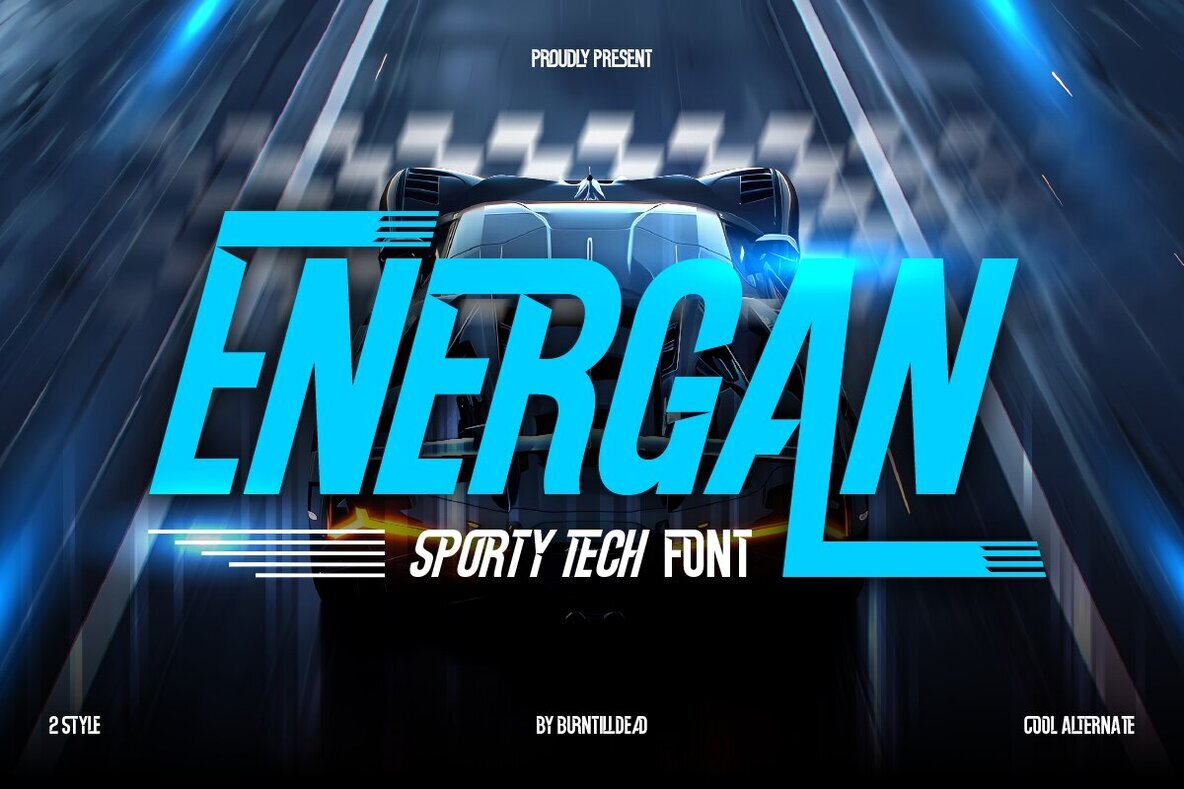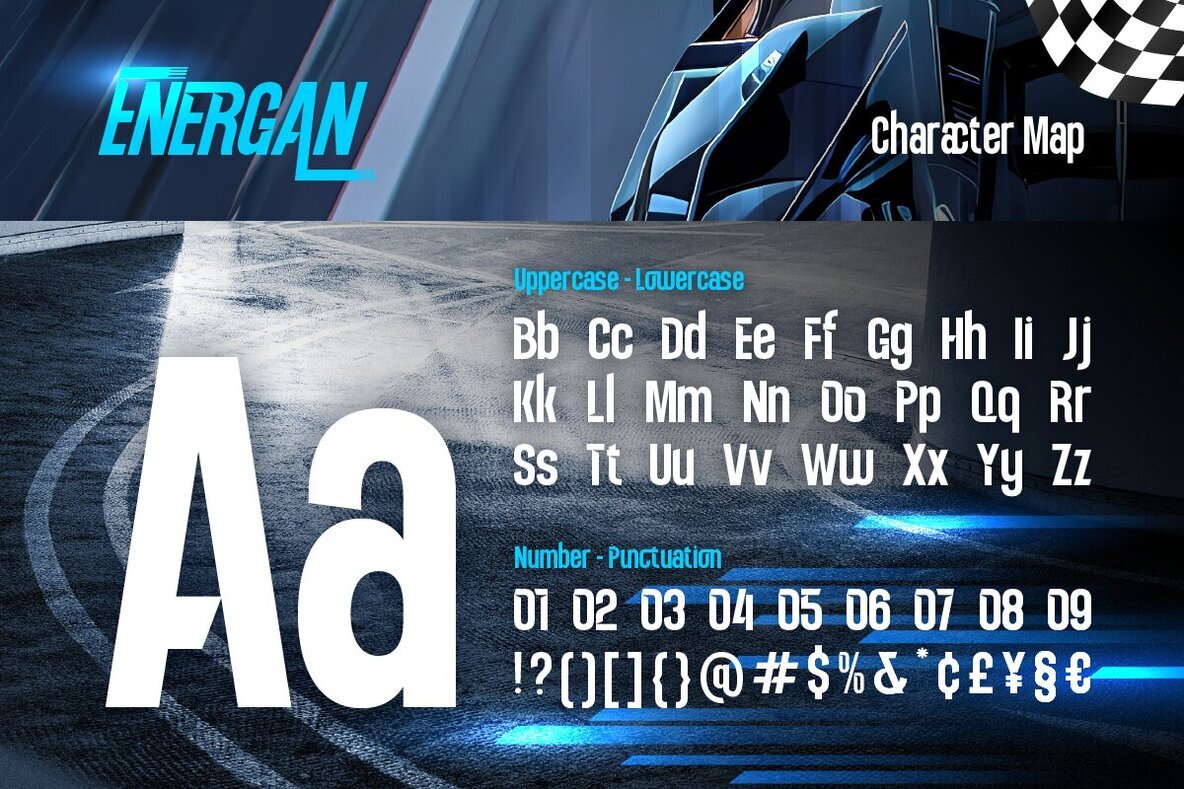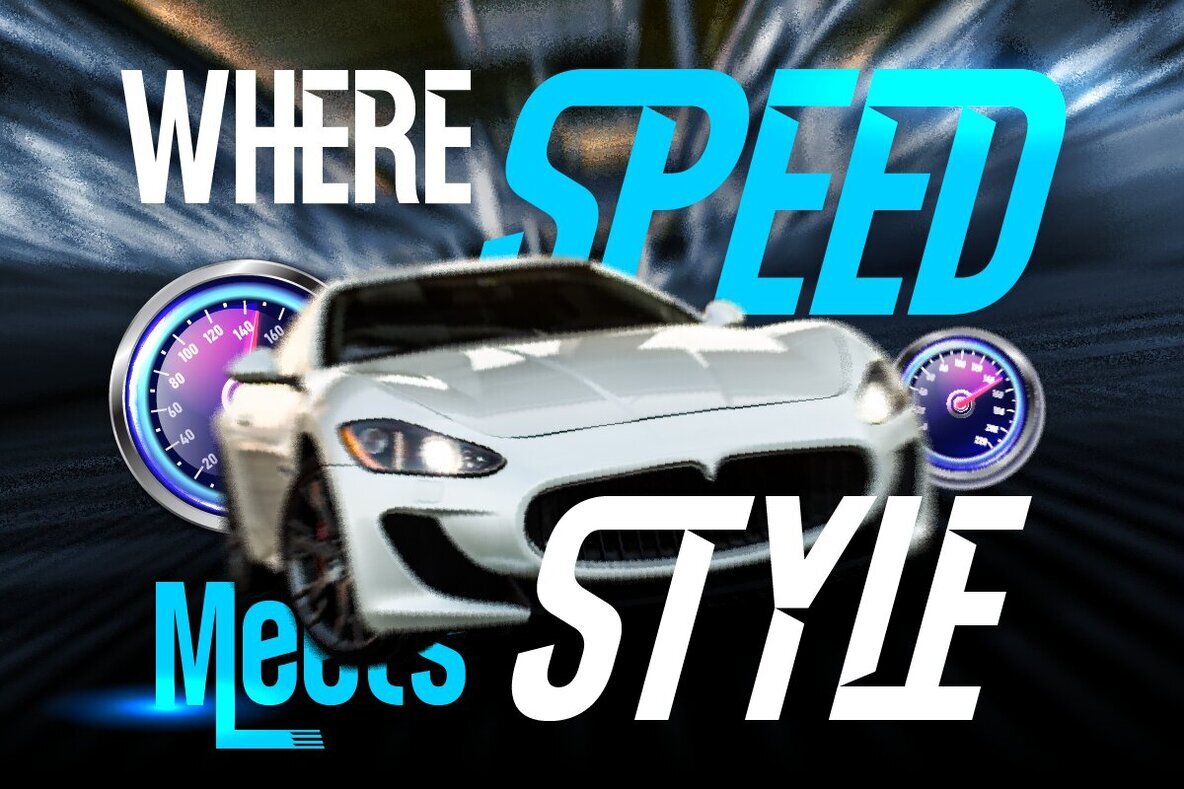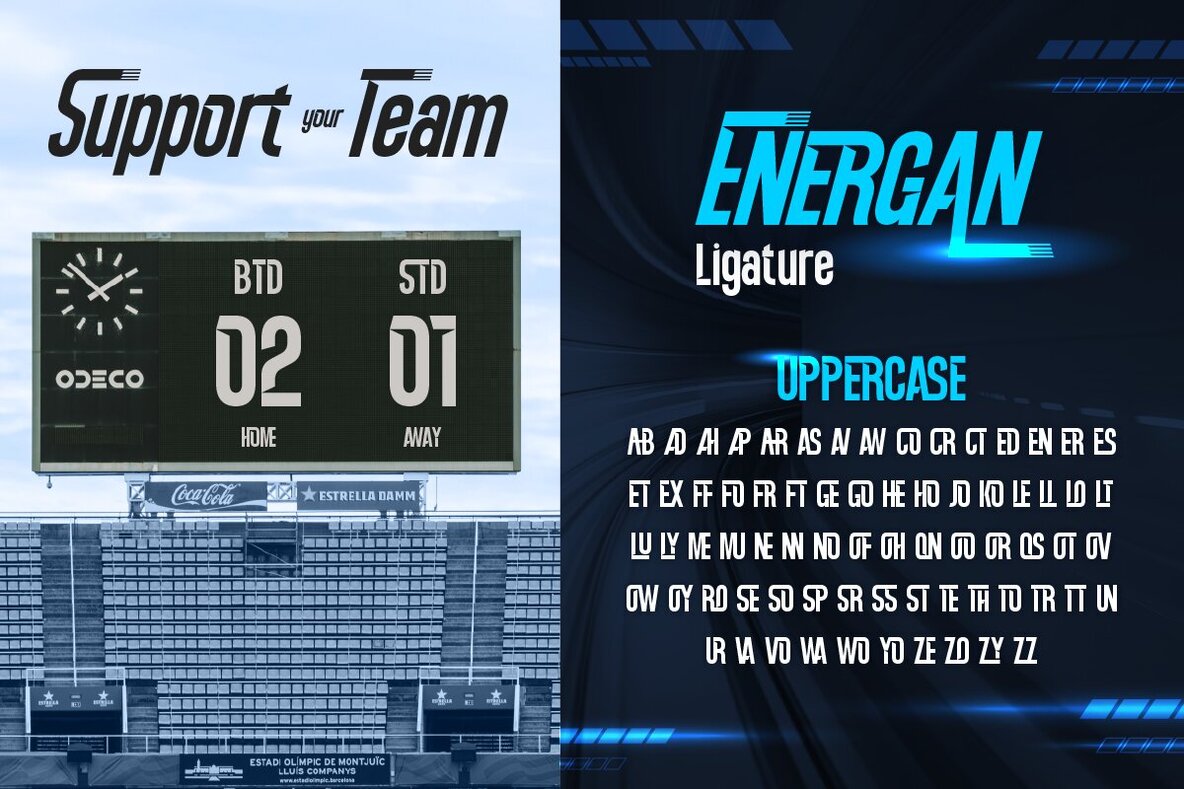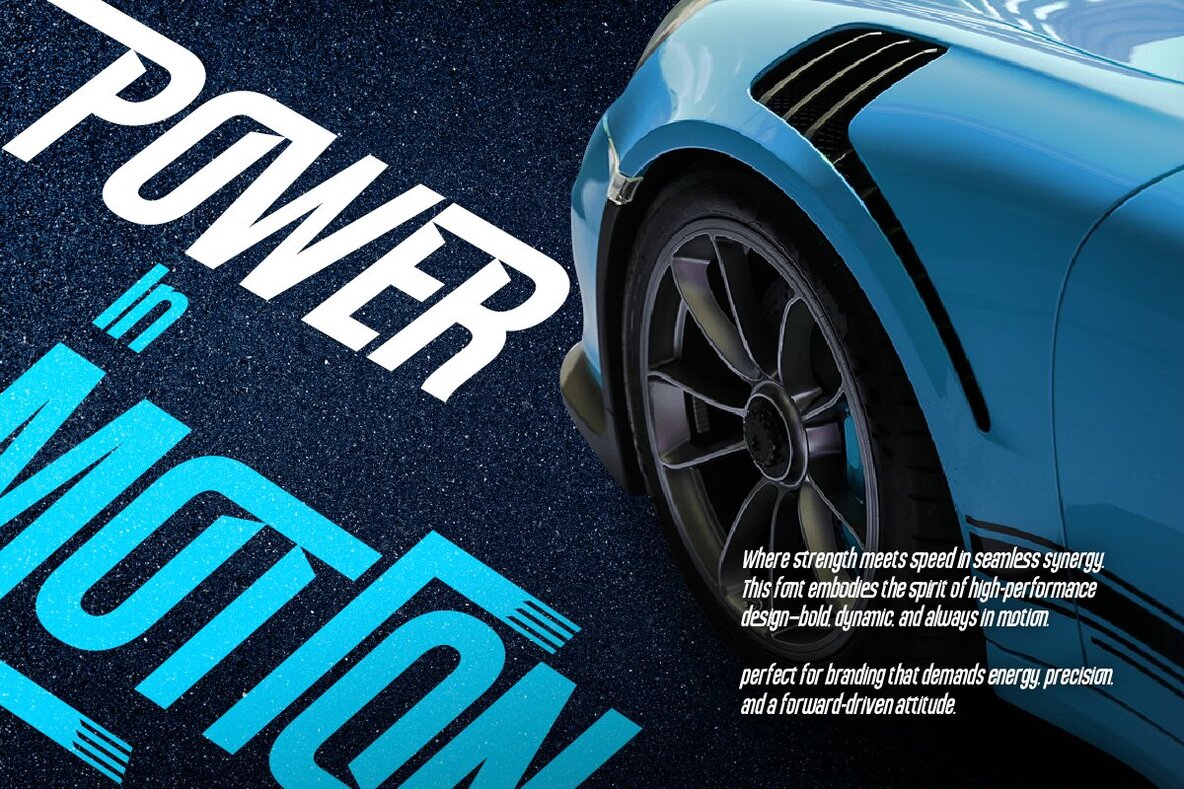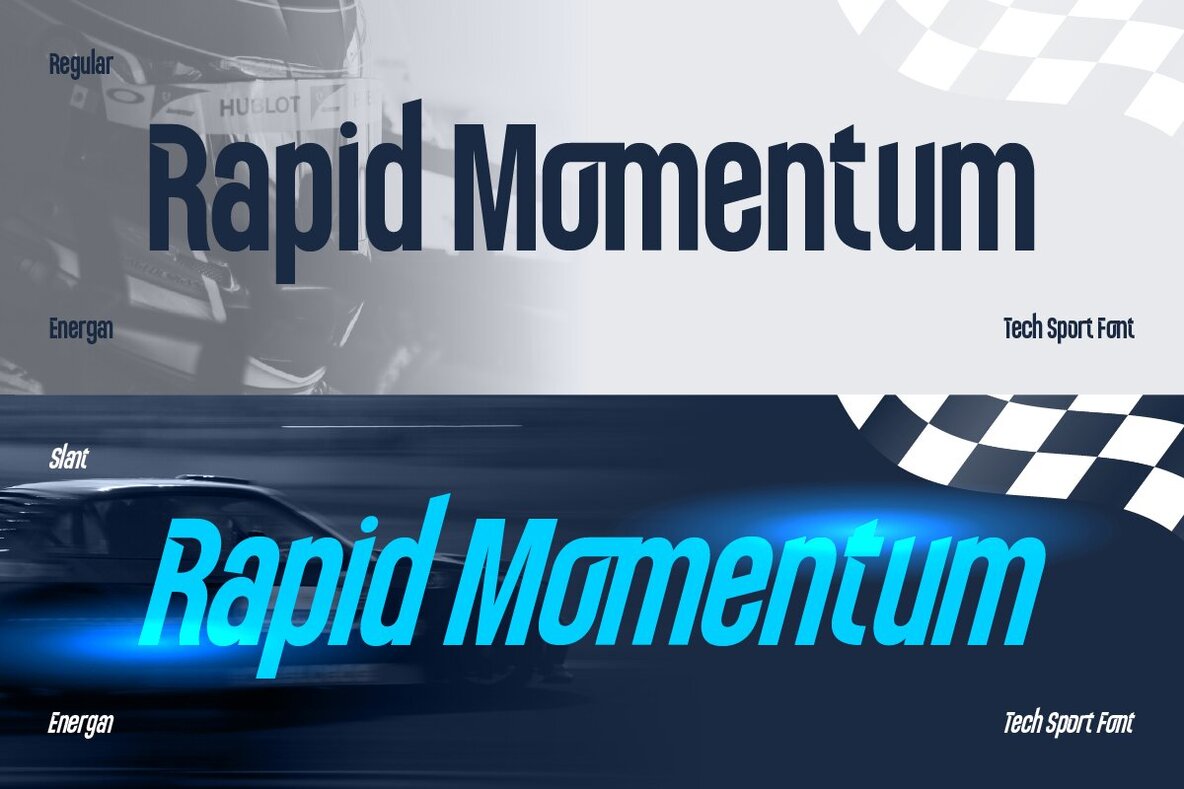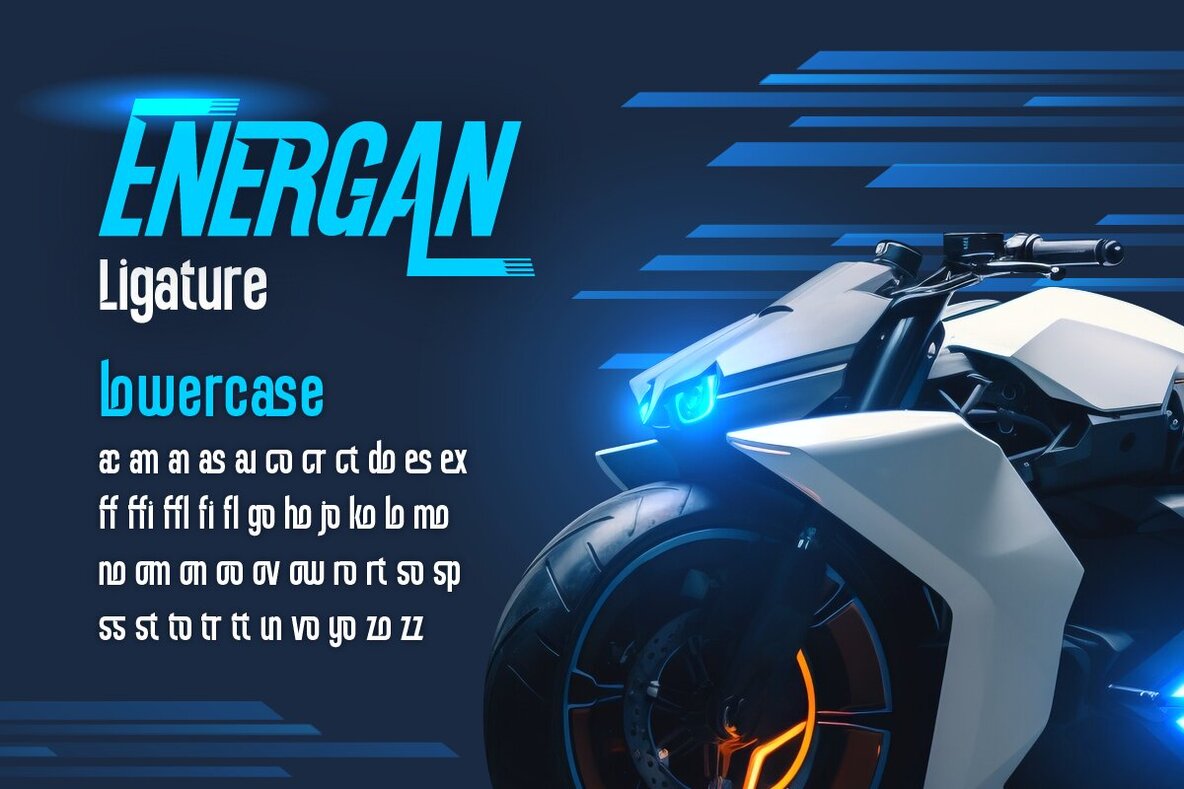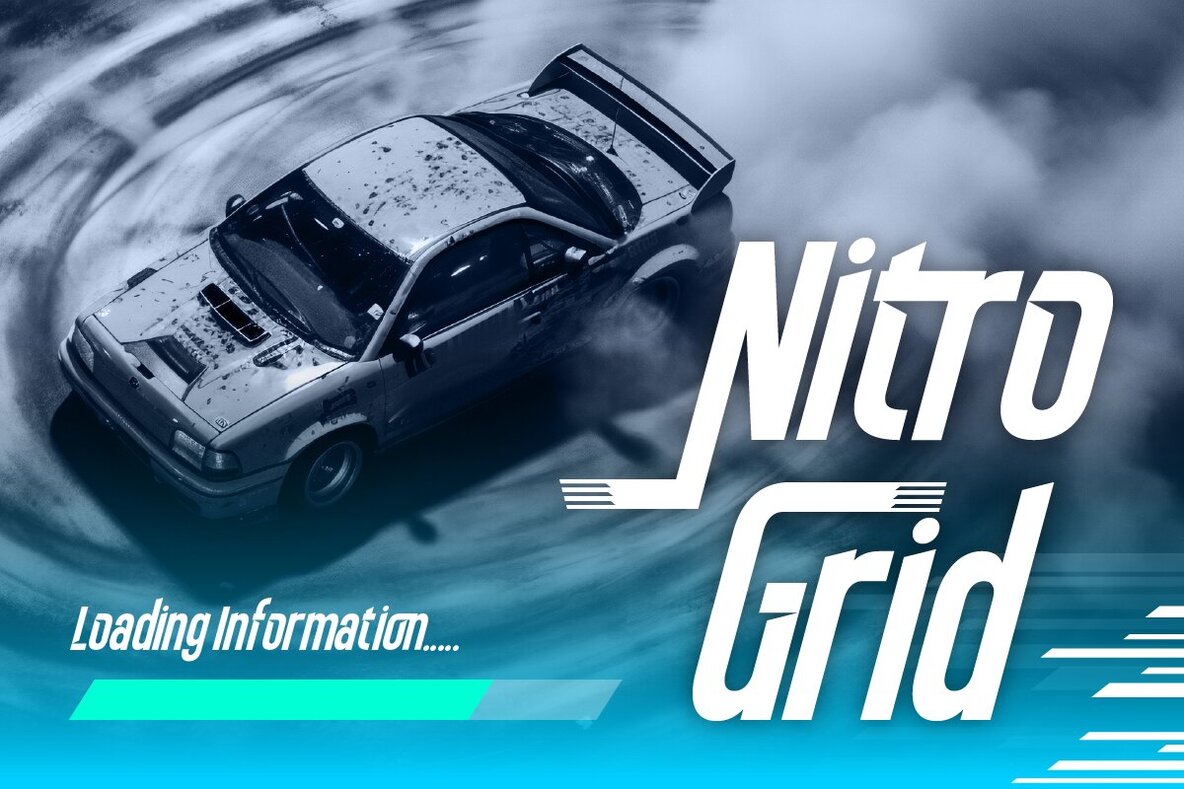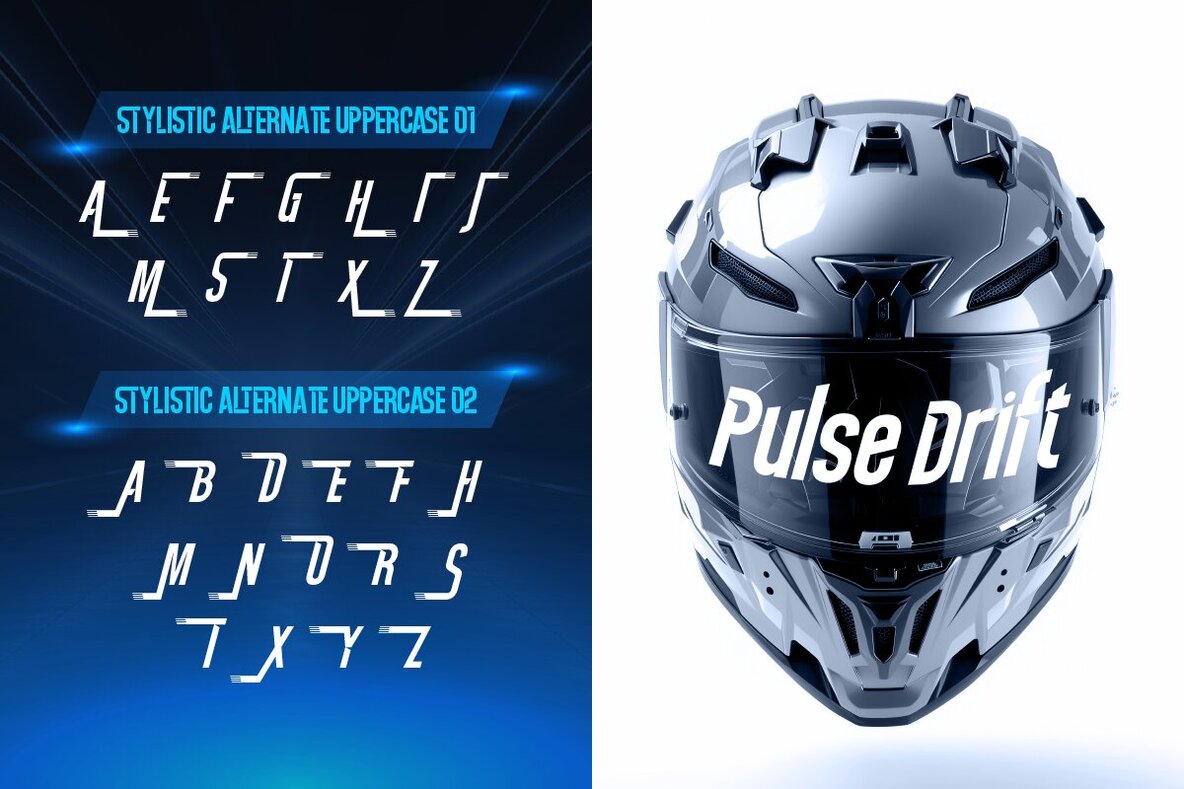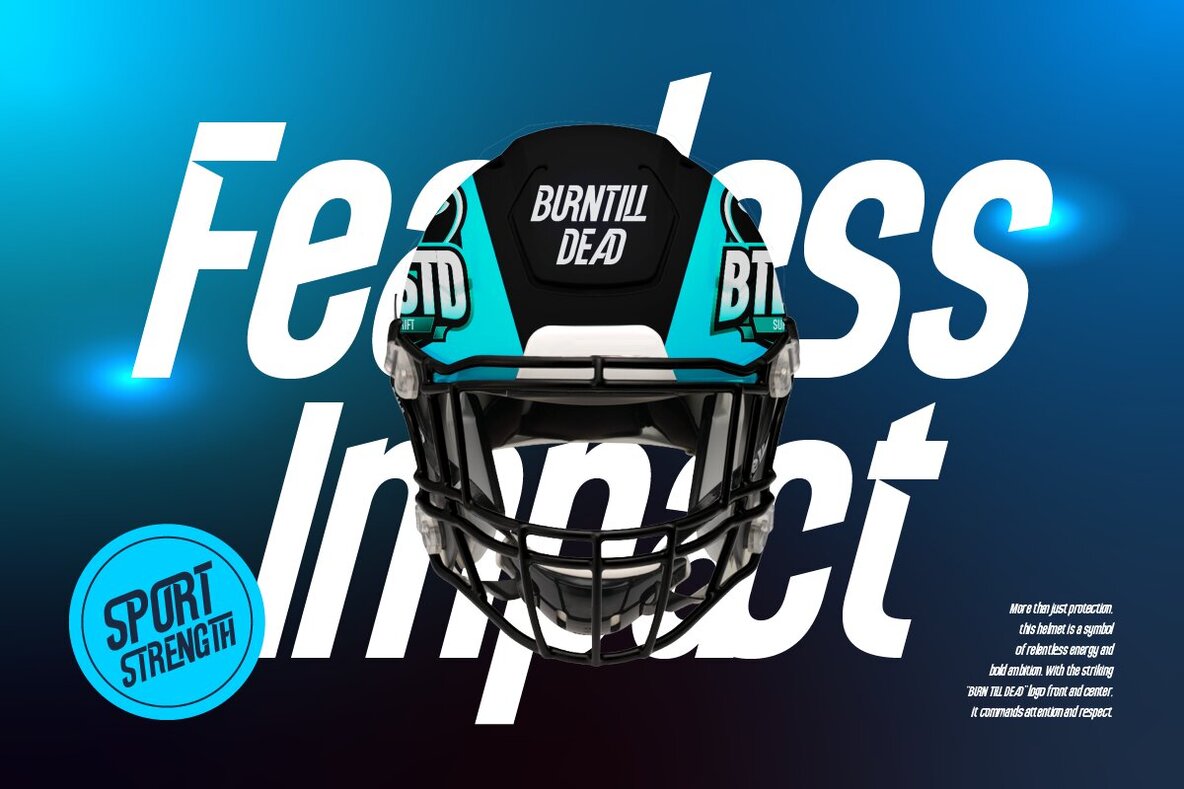
Energan Font
Energan Regular
Energan Slant
Energan is a condensed sporty tech font that captures the spirit of speed and precision. This display typeface embodies the rapid pace of technology, reminiscent of a race car's dynamic energy. Its sharp cuts and streamlined shapes exude a sense of motion and power, making it perfect for projects aiming for a high-performance feel. Designed for impact, Energan enhances a wide range of creative endeavors. Be it a motorsport logo, automotive headline, racing flyer, gaming event poster, tech brand, or YouTube thumbnail, Energan injects a thrilling adrenaline rush your visuals crave. Its condensed sans serif style ensures your designs exude a strong, fast, and professional vibe.Energan: Futuristic Speed Meets Typography